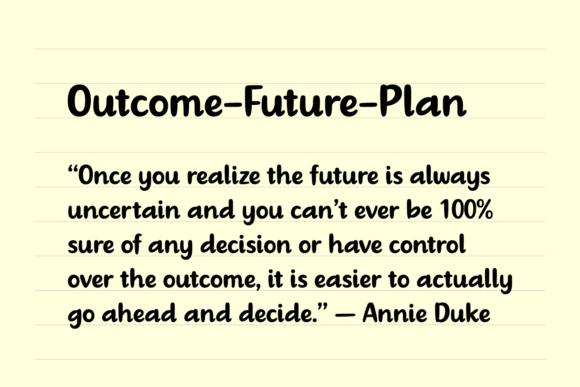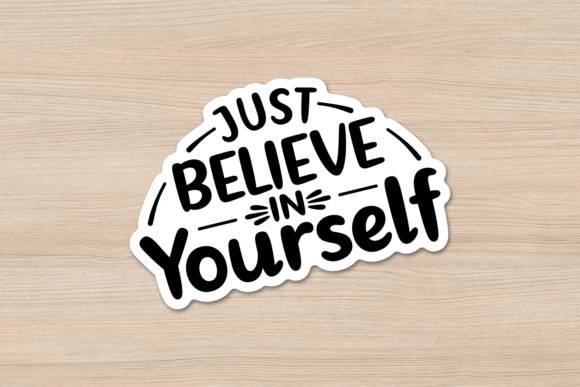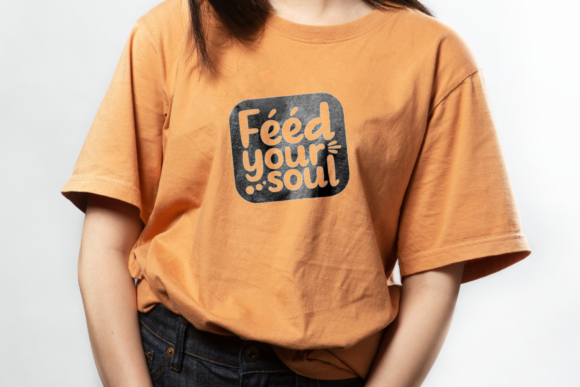
About Gladhand Font
Gladhand is a neat and casual handwritten font. Whatever the topic, this font will be a wonderful asset to your font library, as it has the potential to enhance any creation.